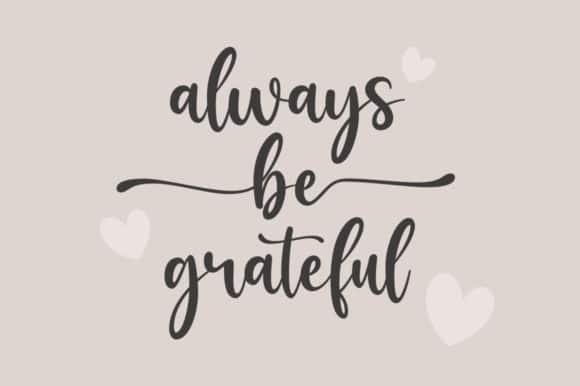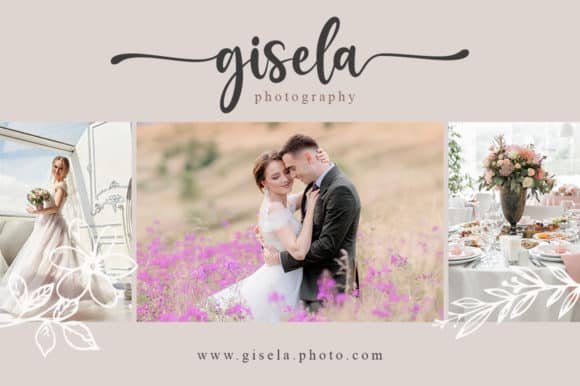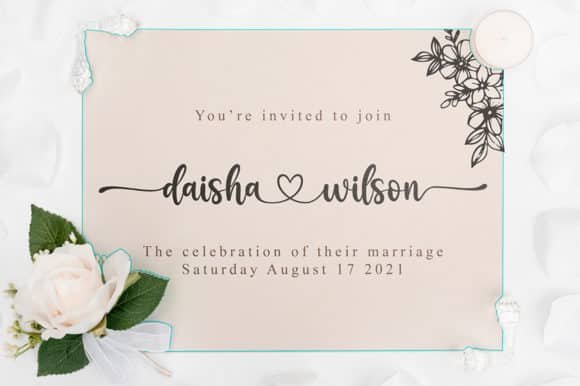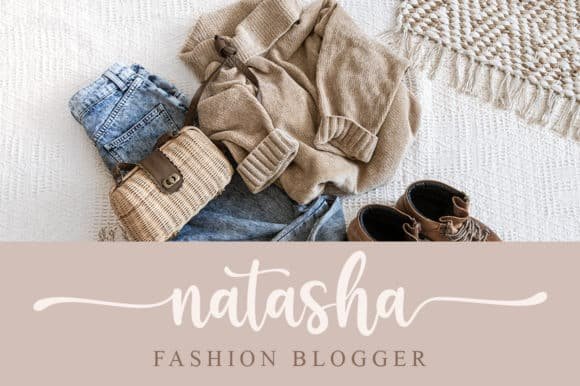
Soulmate Font
Soulmate is a stylish and incredibly elegant handwritten font. It looks stunning on wedding invitations, thank you cards, quotes, greeting cards, logos, business cards and every other design which needs a handwritten touch. This font is PUA encoded which means you can access all of the glyphs and swashes with ease!